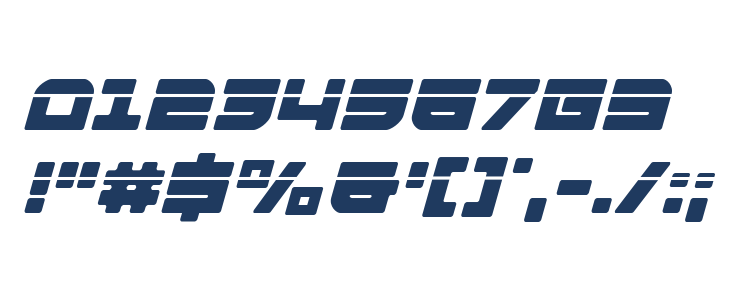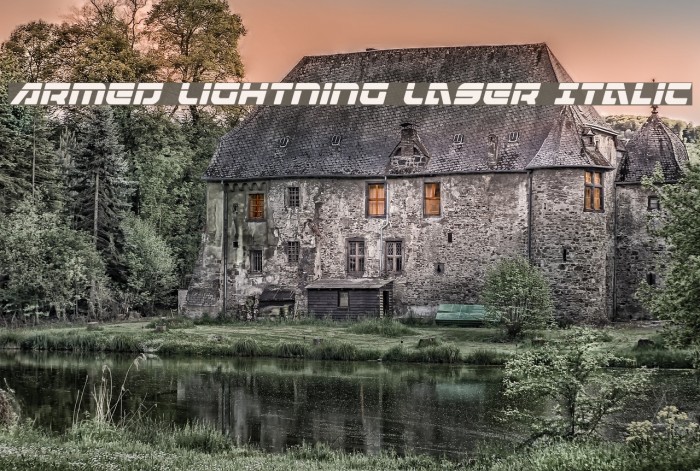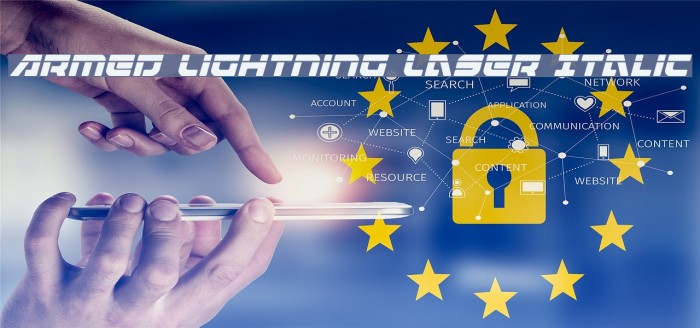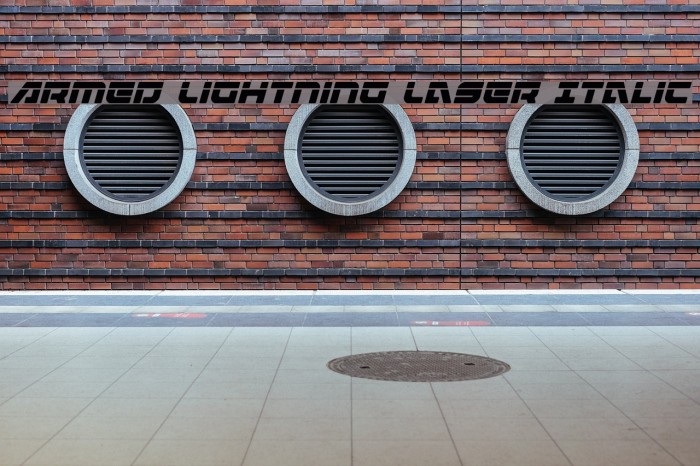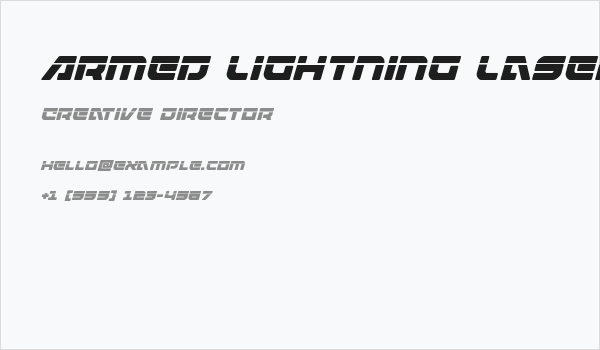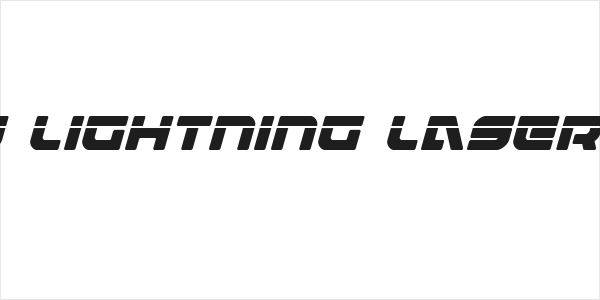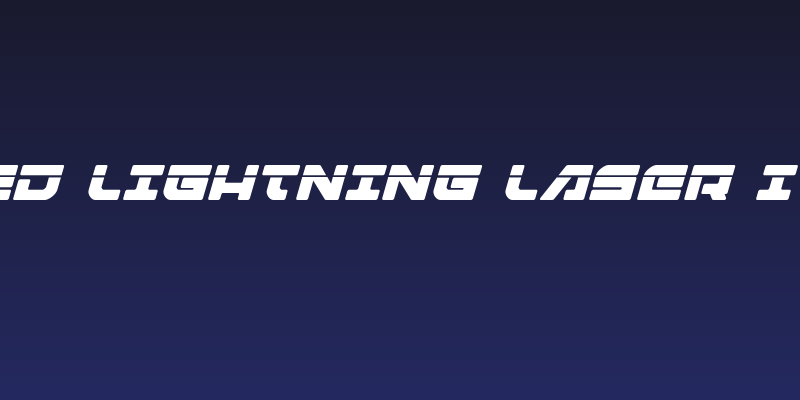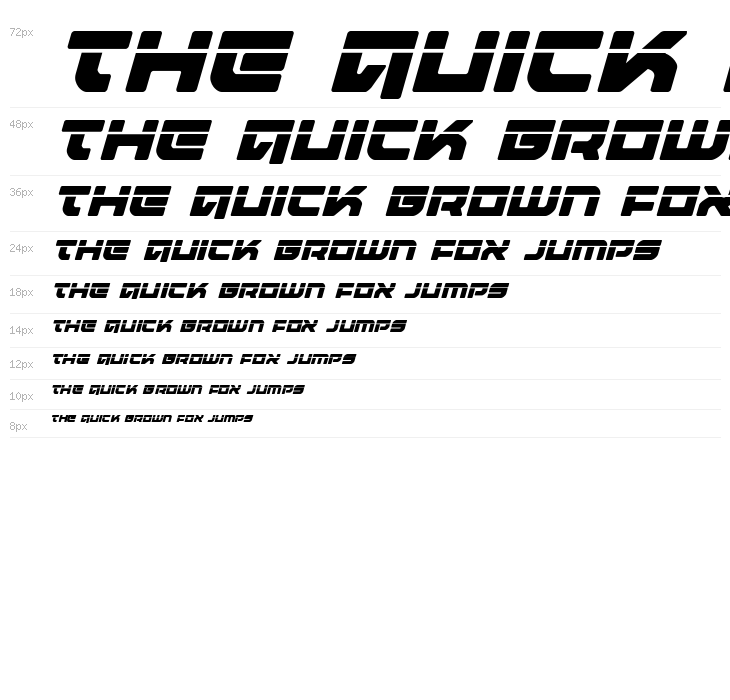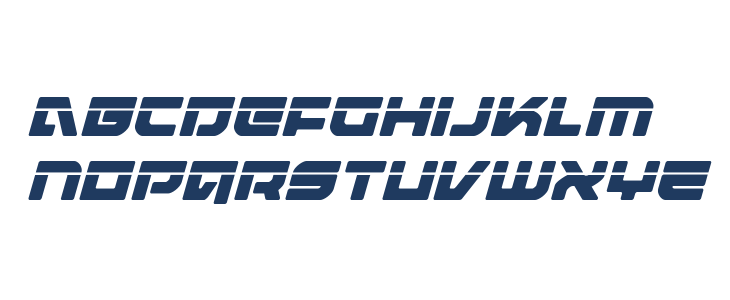
Armed Lightning Laser Italic Font
Armed Lightning Laser Italic Description
This font features a futuristic and dynamic design, characterized by its bold, angular shapes and italicized slant. The letters are constructed with sharp edges and geometric forms, giving it a high-tech, modern appearance. The uppercase and lowercase letters maintain a consistent style, with a strong emphasis on horizontal lines and diagonal cuts. The numbers and special characters follow the same design principles, ensuring uniformity across all glyphs. The font's unique style makes it stand out, ideal for projects that require a sense of speed and innovation.
Proposed ProjectsIdeal for sci-fi movie posters, video game titles, technology branding, and futuristic-themed designs.